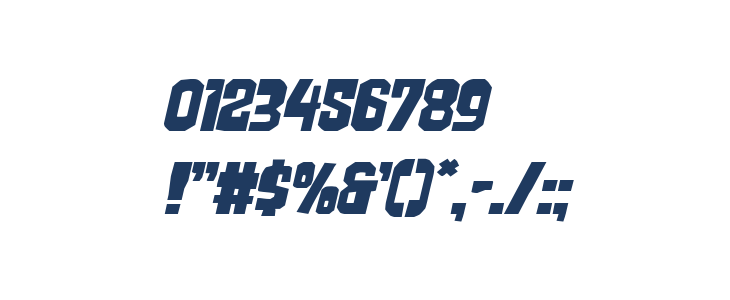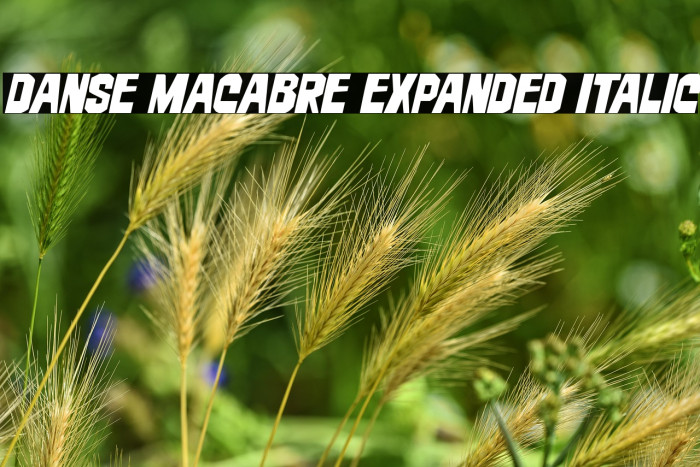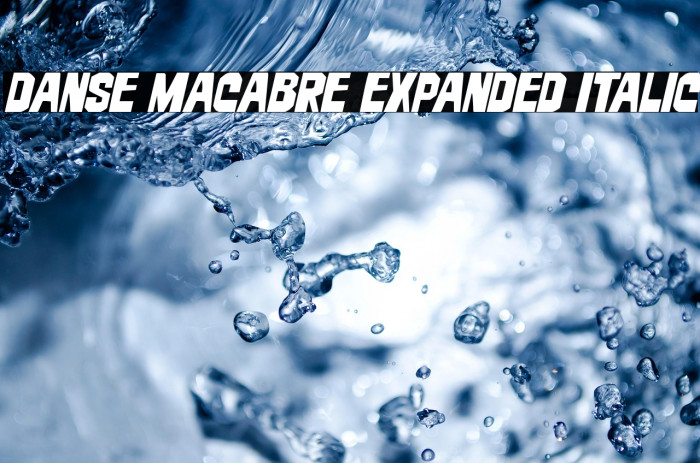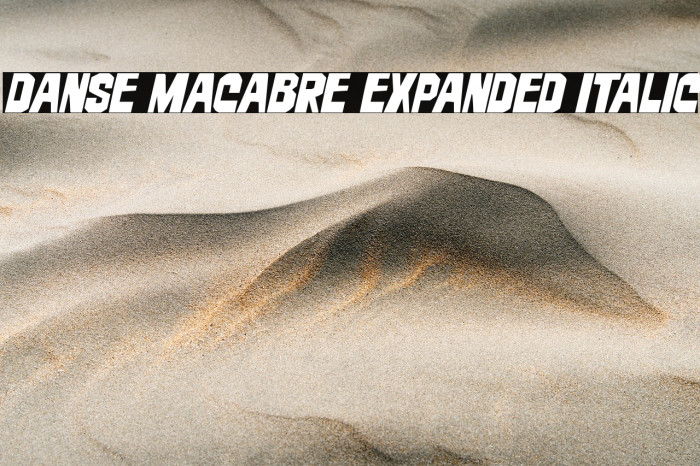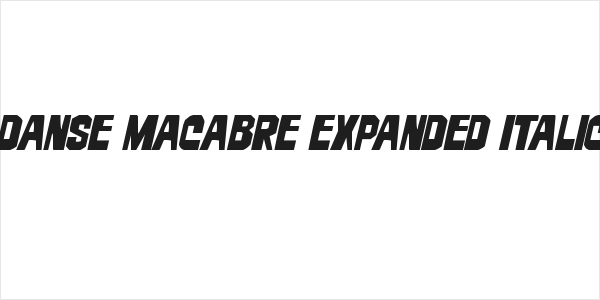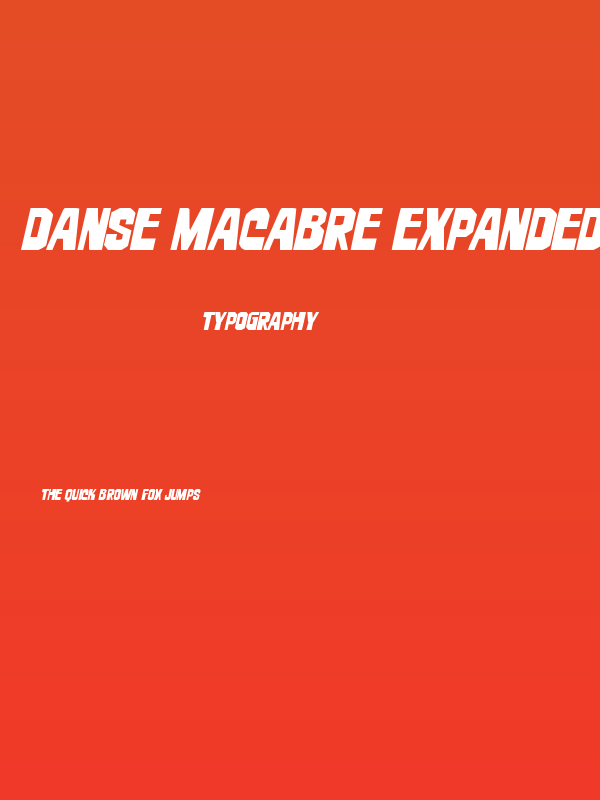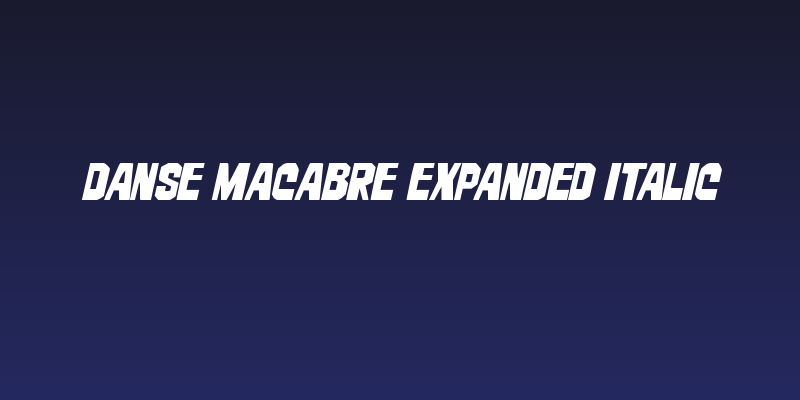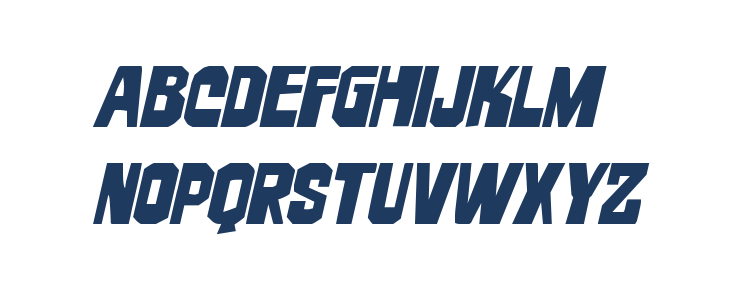
Danse Macabre Expanded Italic Font
Danse Macabre Expanded Italic Description
This font features a bold and dynamic design with a distinctly modern flair. The characters are expanded and italicized, giving them a sense of movement and energy. The angular cuts and sharp edges contribute to a futuristic and aggressive aesthetic. The uppercase and lowercase letters maintain a consistent style, with each character exhibiting a strong presence. The numerals and special characters are equally bold, ensuring uniformity across all text elements. This font's unique style makes it stand out, ideal for projects that require a striking and memorable visual impact.
| Proposed Projects | Ideal for branding, posters, sports team logos, and video game titles. |